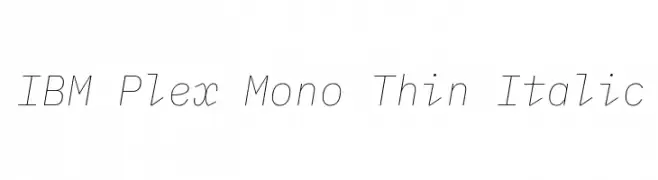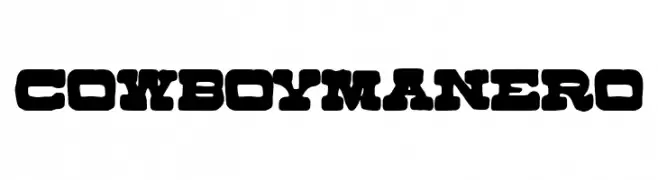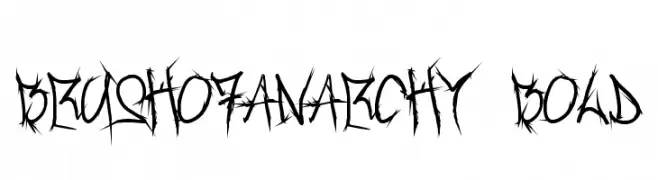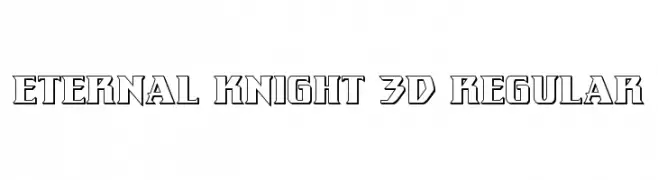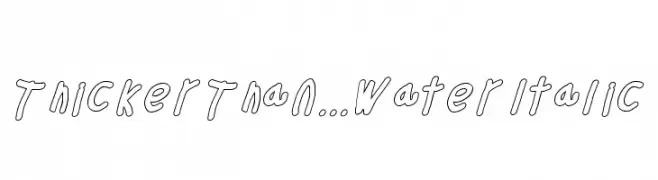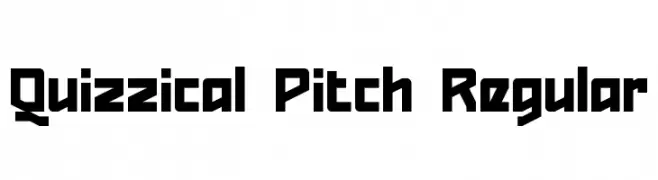
A modern, thin, monospaced italic font with clean lines and high legibility.
An elegant, flowing script font with classic and modern elements.
A bold, distressed graffiti-style font with textured, paint-splattered characters.
A bold, rugged font with a vintage Western style.
A collection of pirate-themed illustrations and symbols.
A bold, edgy font with sharp, jagged strokes and a rebellious style.
A bold, 3D font with angular, geometric shapes and a strong, dynamic presence.
A playful, hand-drawn italic font with outlined characters.
A bold, geometric font with a futuristic and angular design.